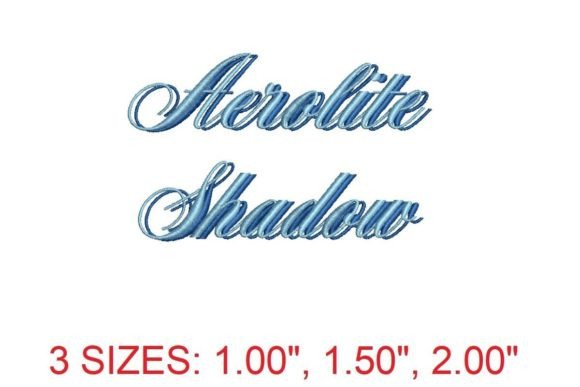
Aerolite Shadow Embroidery Font Review
As a designer with years of experience in embroidery, I always approach new designs with a critical eye. The Aerolite Shadow Embroidery Font caught my attention not just for its aesthetic appeal, but for how it could translate into real-world projects. This font is more than just a pretty design—it’s a tool that can elevate your work if used thoughtfully.
The First Impression: Elegance Meets Depth
The Aerolite Shadow Embroidery Font immediately conveys a sense of sophistication. Its shadowed lettering adds a layer of visual interest that stands out without being overwhelming. The design feels modern yet timeless, making it suitable for a wide range of projects. Whether you're working on a custom tote bag or a baby onesie, the font has a presence that commands attention.
The layout is clean and balanced, with enough detail to make the design feel intricate but not overly complex. The shadow effect gives it a three-dimensional quality that works well with satin stitch and fill stitch techniques. It’s the kind of design that can be both a focal point and a subtle accent, depending on how you use it.
Real-World Applications: Where It Shines
I tested the Aerolite Shadow Embroidery Font on a few different materials and found it particularly effective on custom apparel like sweatshirts and t-shirts. The font’s structure allows for clear stitching, even on medium-weight fabrics. When applied to a tote bag design, it added a professional touch that would look great in a boutique setting or as part of an Etsy listing.
For baby items, the font’s softness and clarity made it ideal for embroidered patches or onesies. The shadow effect didn’t overpower the delicate nature of the project, which is important when creating personalized gifts. It also worked well on holiday embroidery, where the design’s elegance complemented seasonal themes without feeling too formal.
On caps and hats, the Aerolite Shadow Embroidery Font required careful attention to hoop size and stabilizer use. The design’s depth meant that smaller hoops could struggle to capture all the details, so I recommend using a larger hoop or breaking the design into sections if necessary.
Where to Be Cautious: Limitations and Considerations
While the Aerolite Shadow Embroidery Font is versatile, there are situations where it might not perform as well. On thin or stretchy fabrics, the shadow effect can become less defined, especially if the fabric shifts during stitching. I found that using a good stabilizer helped maintain the design’s integrity, but it’s something to keep in mind when working with delicate materials.
For small hoop sizes, the font’s detail level can be challenging. If you’re working on a patch or a small item, you may need to adjust the design or simplify parts of it. Similarly, on dark fabrics, the shadow might not show up as clearly, so testing with different thread colors is essential.
The font also requires attention to stitch density. Too much density can cause the design to look muddy, while too little can make the shadow effect fade. Balancing this is key to achieving a polished finished product.
Impact on Visual Appeal and Customer Perception
The Aerolite Shadow Embroidery Font adds a level of professionalism that can enhance the perceived value of your handmade products. Customers often notice the quality of the embroidery, and this font’s clean lines and depth can make a significant difference in how they view your work.
As an Etsy seller or small shop owner, using this font can help create a consistent brand identity. It’s especially useful for commercial embroidery projects where uniformity and quality are important. The font’s versatility means it can be used across multiple product types, from apparel to home decor, without feeling out of place.
When it comes to giftability, the Aerolite Shadow Embroidery Font offers a unique touch that makes personalized gifts stand out. Whether it’s a custom pillow cover or a holiday ornament, the design adds a thoughtful, high-quality element that customers will appreciate.
Practical Designer Notes: What to Keep in Mind
Before committing to the Aerolite Shadow Embroidery Font, I recommend testing it on scrap fabric. This helps you see how the shadow effect translates in real stitching and whether the design meets your expectations. Checking thread color contrast is also important—especially if you’re using dark or light backgrounds.
Reviewing the stitch density is another crucial step. If the design is too dense, it may cause puckering or distortion on certain fabrics. Confirming the correct hoop size ensures that the entire design fits without being cropped or stretched.
Inspecting small details is vital, especially if you’re using the font for intricate projects. Testing the design in black and white mockups can help you see how it looks without color, which is useful for printable mockups or digital product previews.
With proper care and consideration, the Aerolite Shadow Embroidery Font can become a go-to choice for both everyday and special occasion projects. It’s a design that rewards thoughtful use and offers a professional finish that customers will notice and appreciate.